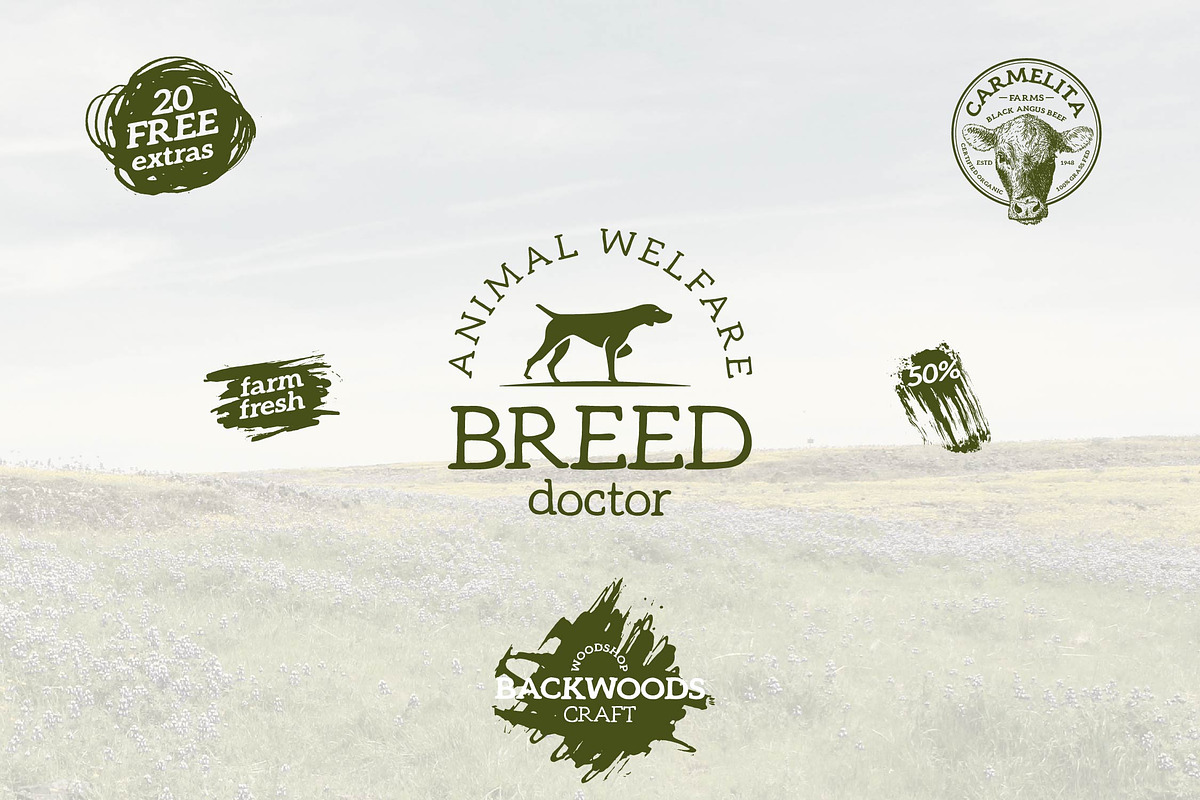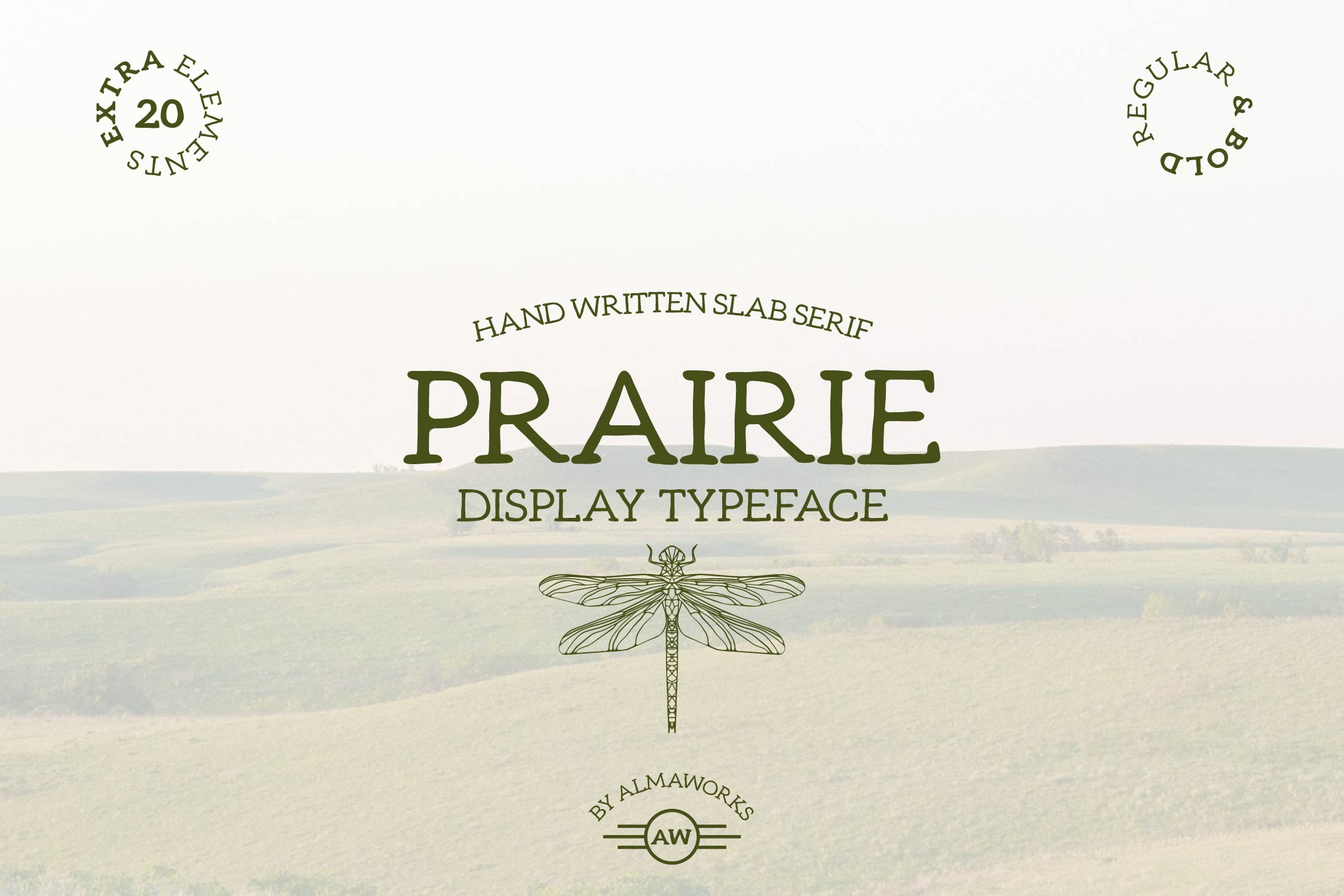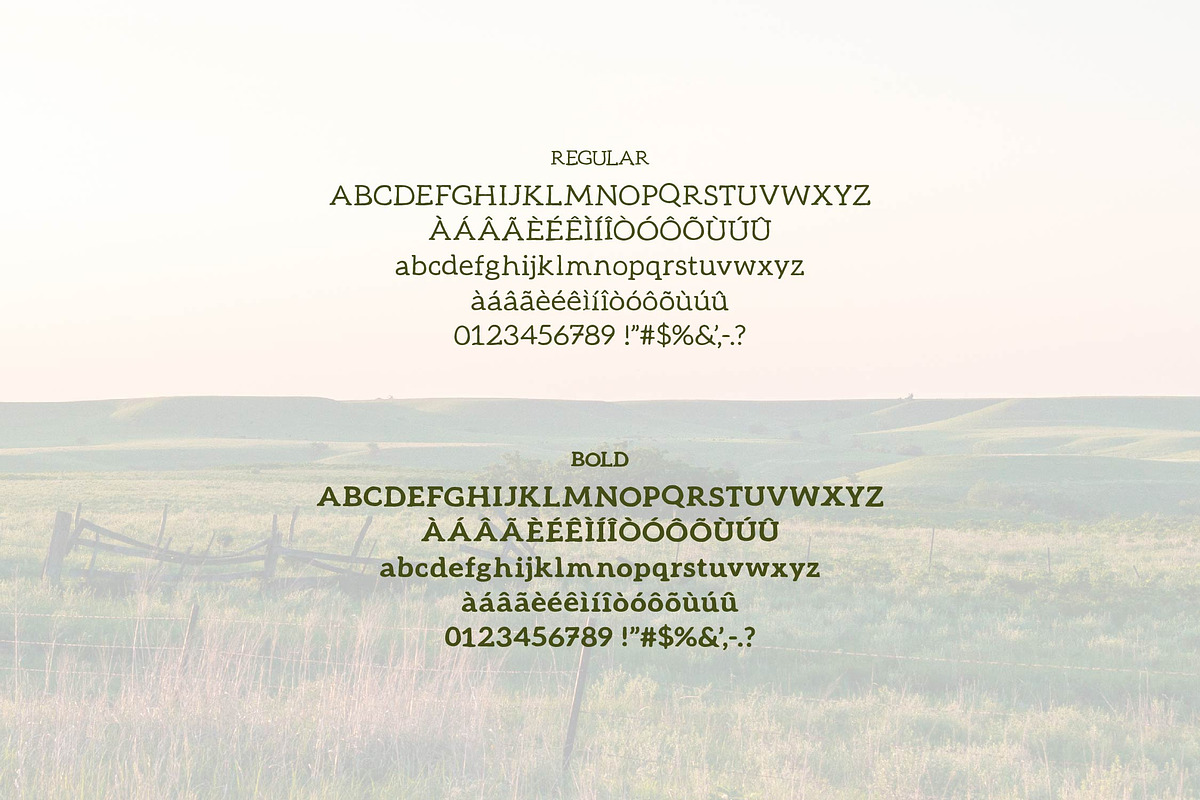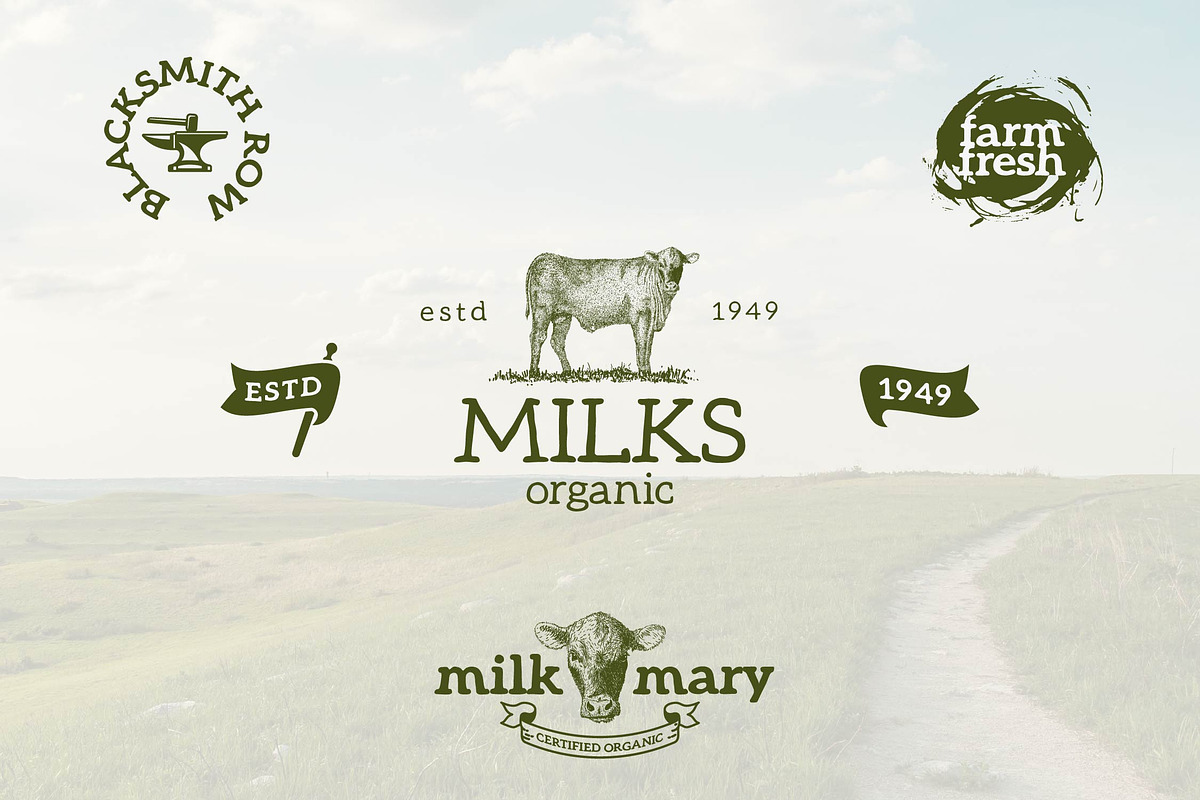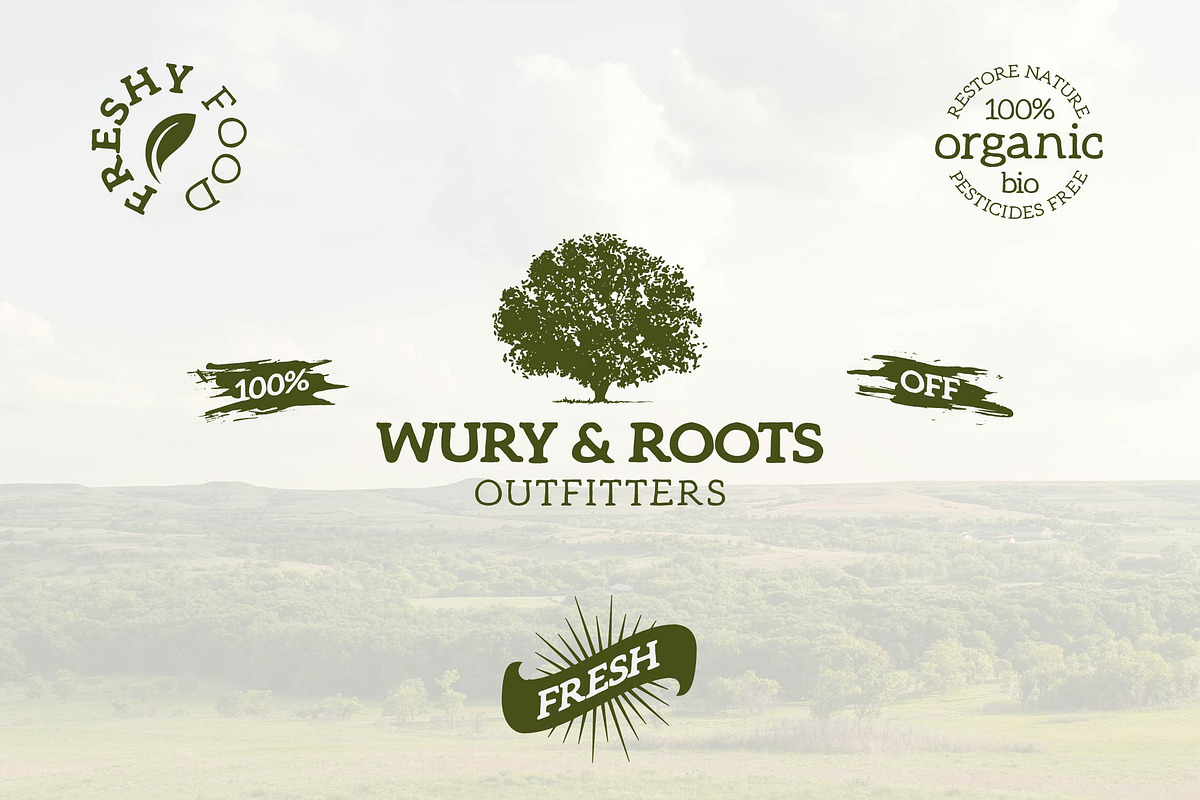
Prairie Font
Introducing 'Prairie', a Handwritten Slab Serif display font with Regular and Bold weights.
'Prairie' is a vintage, rough, casual, rural style font ideal for packaging, branding, label and headline designs.